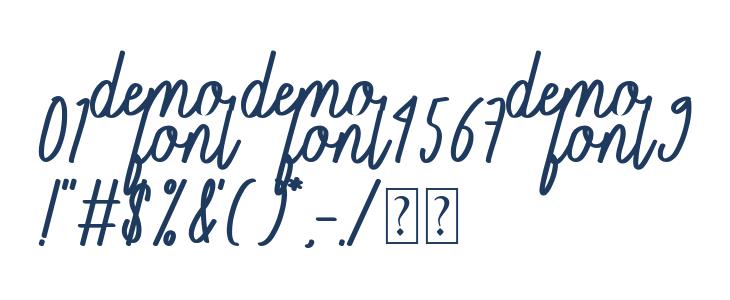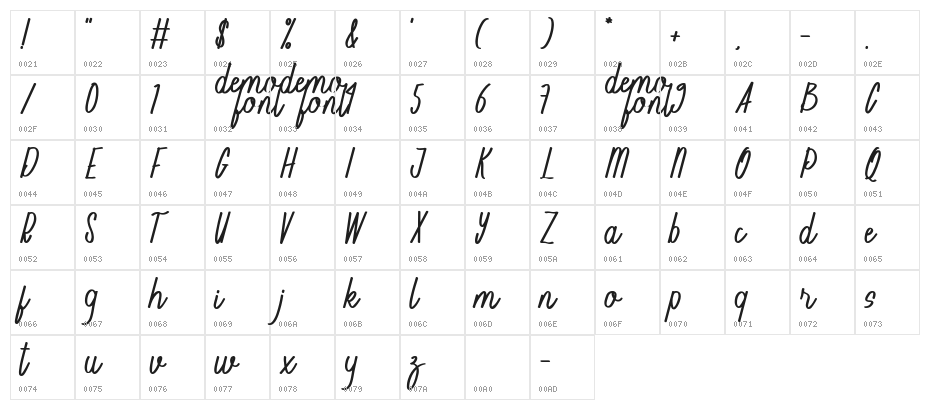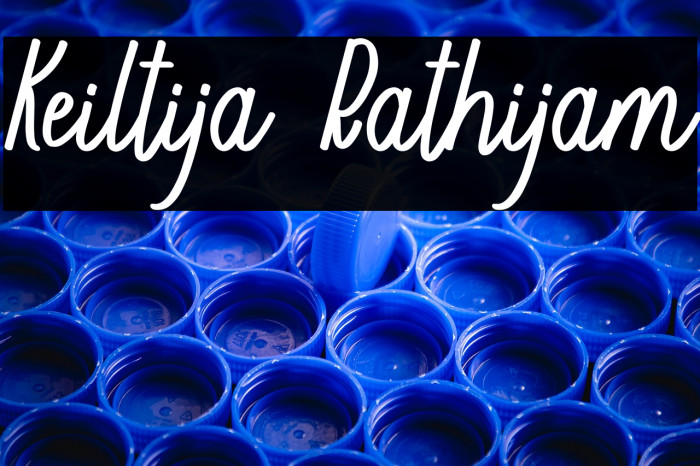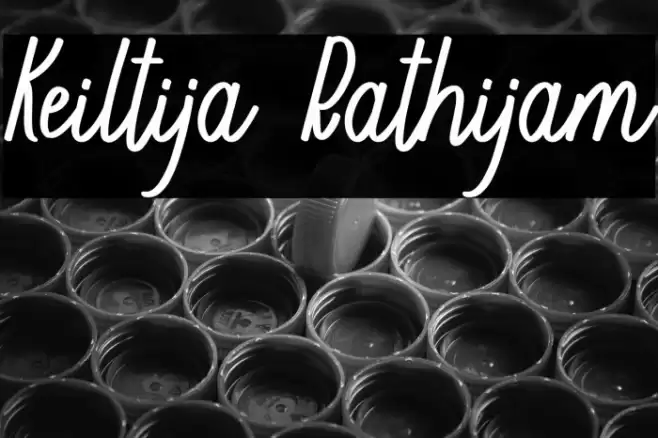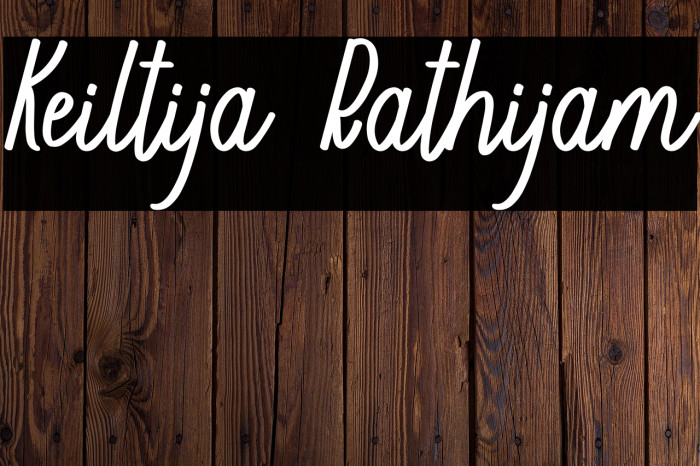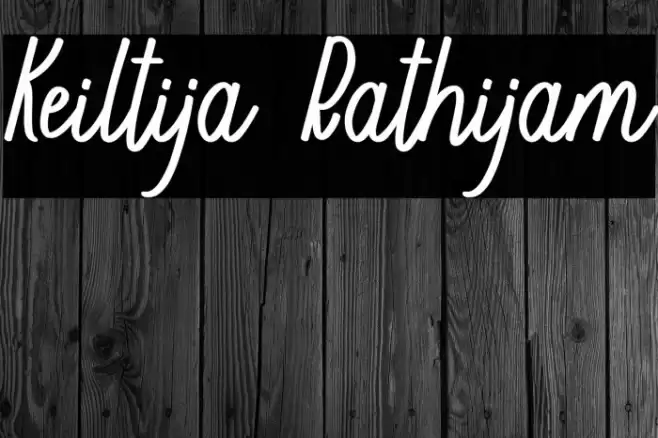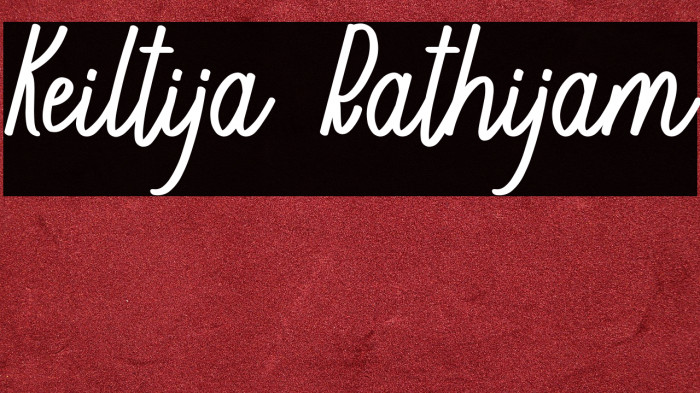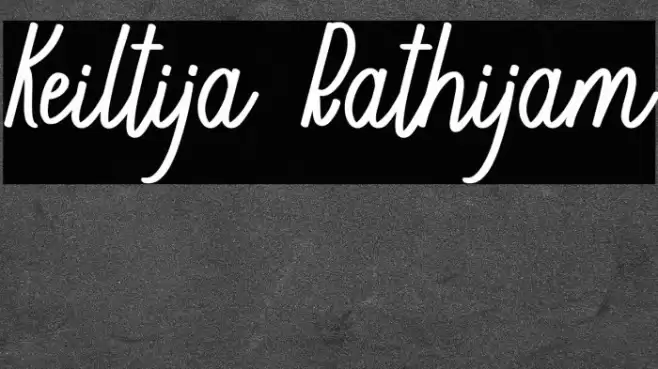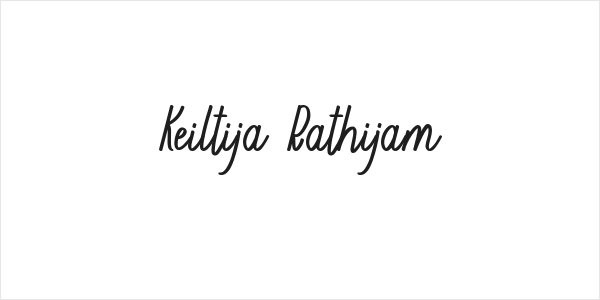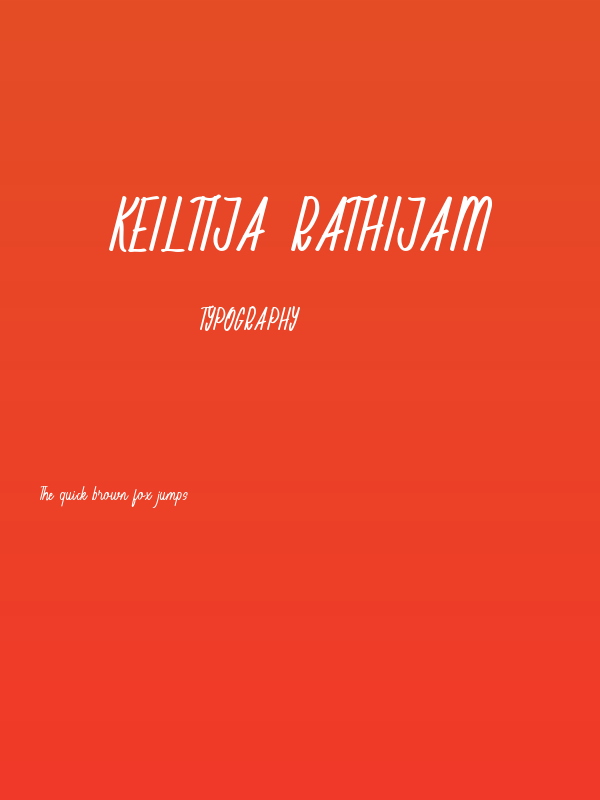
Keiltija Rathijam Font
Keiltija Rathijam Description
This font features a dynamic and expressive handwritten style, characterized by its fluid and slightly slanted letterforms. The strokes are smooth and continuous, giving it a casual yet elegant appearance. The uppercase letters are tall and narrow, while the lowercase letters maintain a consistent flow with rounded edges. The numbers and special characters are crafted to match the overall aesthetic, providing a cohesive look. This font is ideal for projects that require a personal touch, such as invitations, greeting cards, or branding materials.
| Overall Style | Casual, Elegant |
| Proposed Projects | Ideal for invitations, greeting cards, branding materials, and personal projects. |